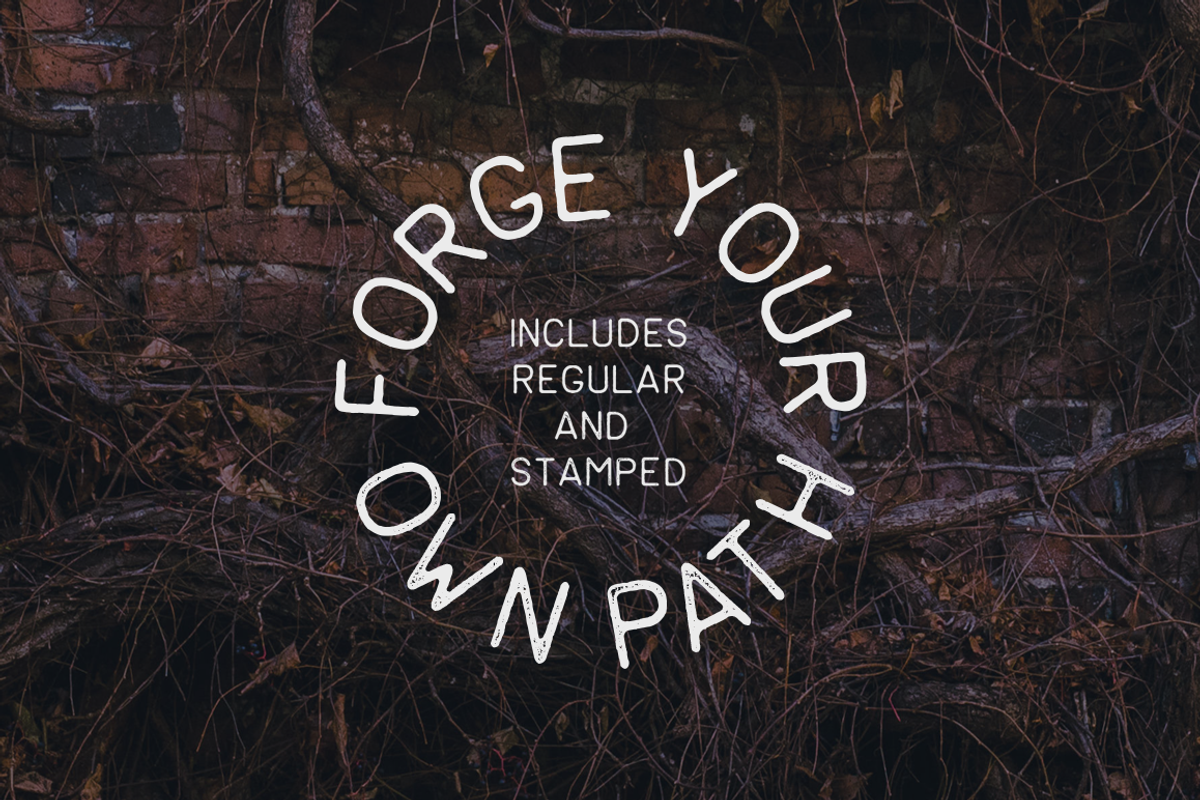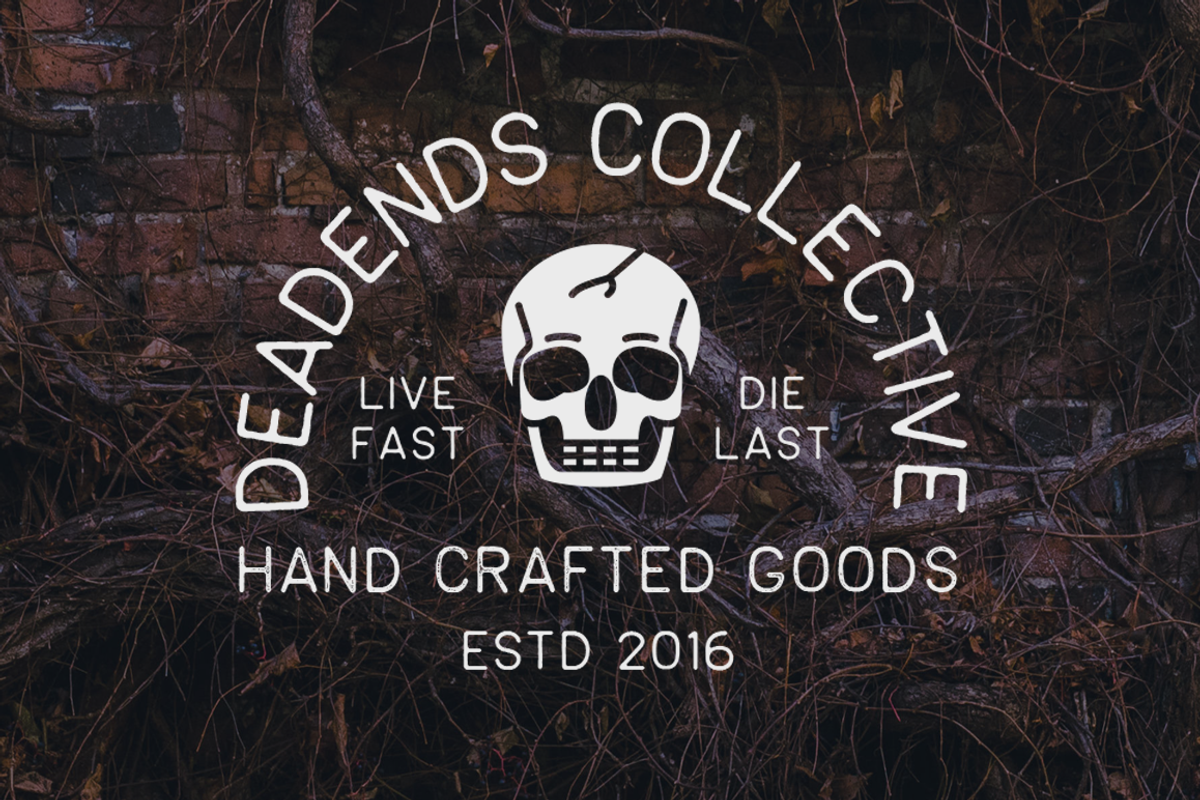
STRUX - Hand-crafted font
STRUX - Hand-crafted font by Mark Richardson is a font selected for branding, posters, packaging, typography.
- STRUX includes two versions: both regularly and a textured, stamped version which was creating using real ink textures.
Why STRUX - Hand-crafted font is worth a look
STRUX - Hand-crafted font by Mark Richardson fits naturally into Branding, posters, packaging, typography.